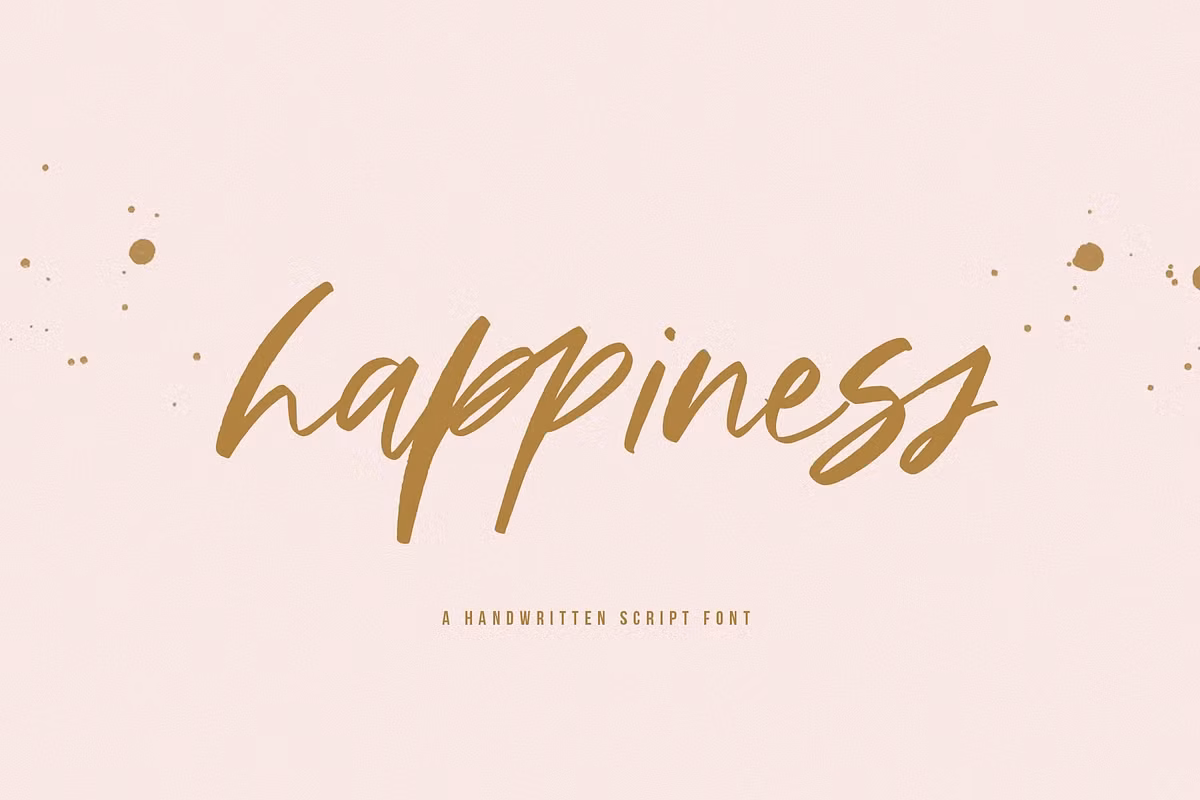
Happiness | Handwritten Script Font Free Download
Happiness | Handwritten Script Font Free Download is a joyful and expressive script typeface that radiates warmth and creativity. With its smooth flow, casual elegance, and natural handwritten feel, this font is perfect for greeting cards, wedding invitations, branding, social media content, and DIY projects that call for a personal, heartfelt touch.
Designed to mimic authentic handwriting, Happiness adds charm and authenticity to your designs while remaining clean and legible. Its playful curves and uplifting energy make it a go-to choice for creatives who want to evoke emotion and connection.